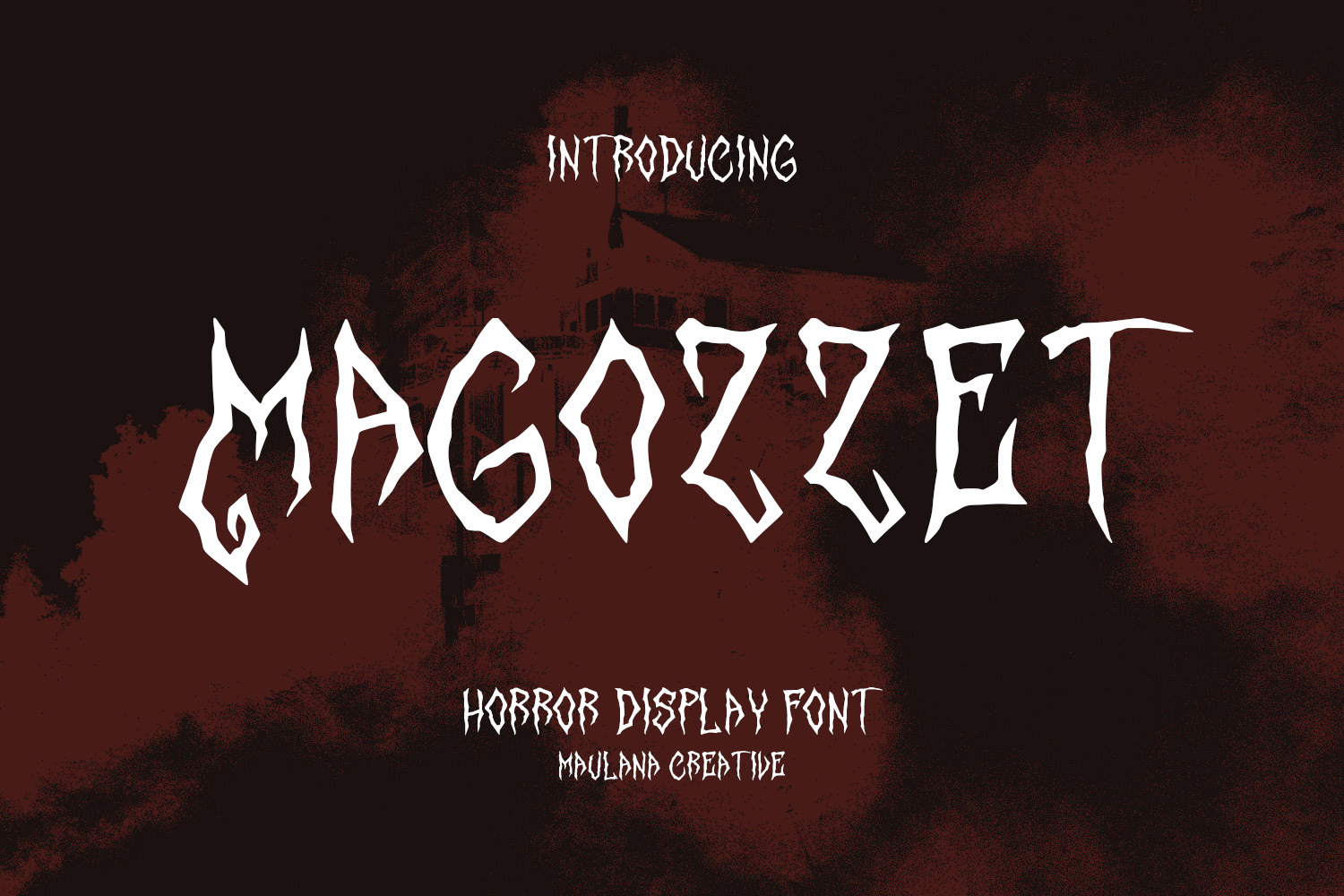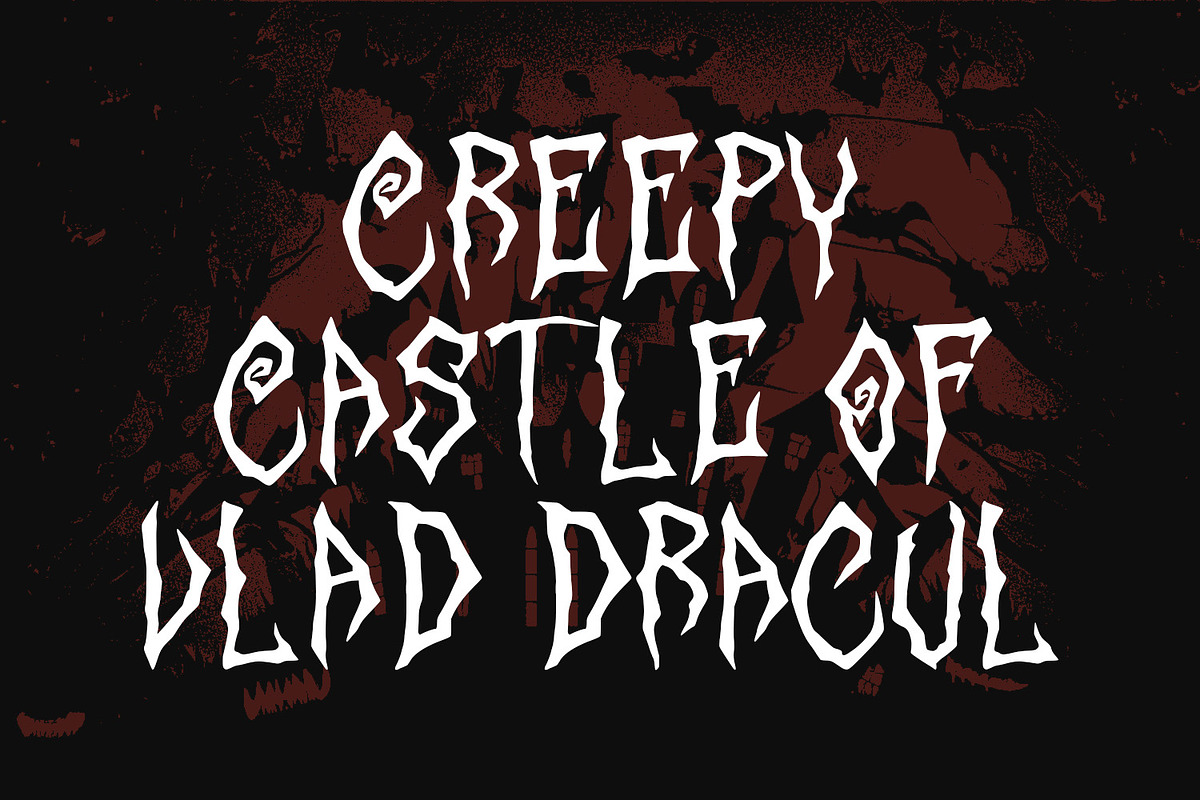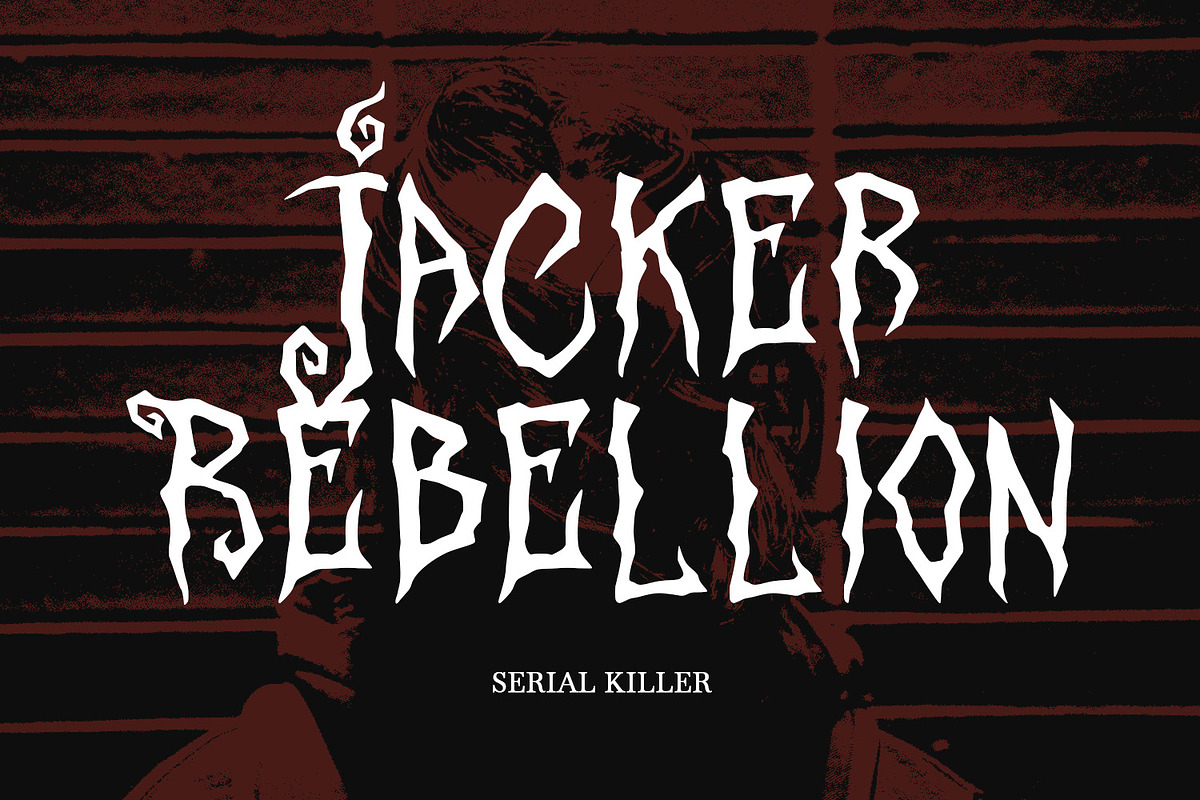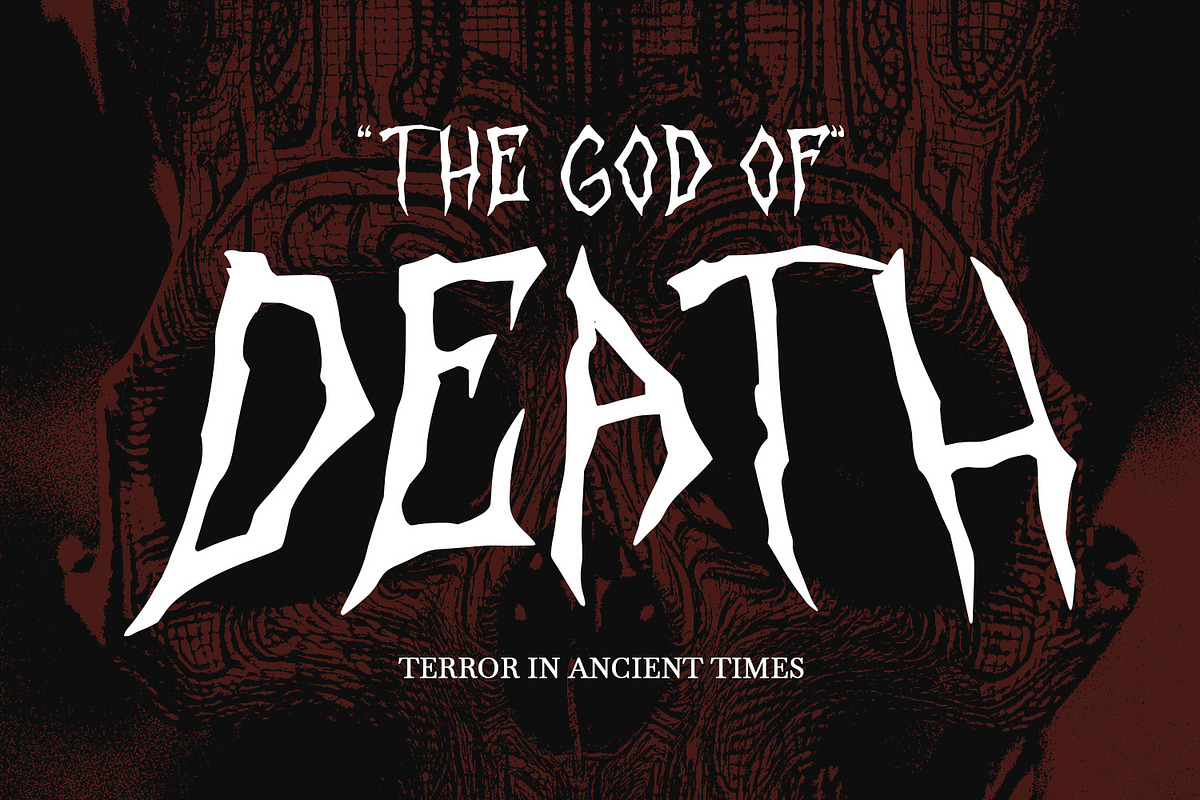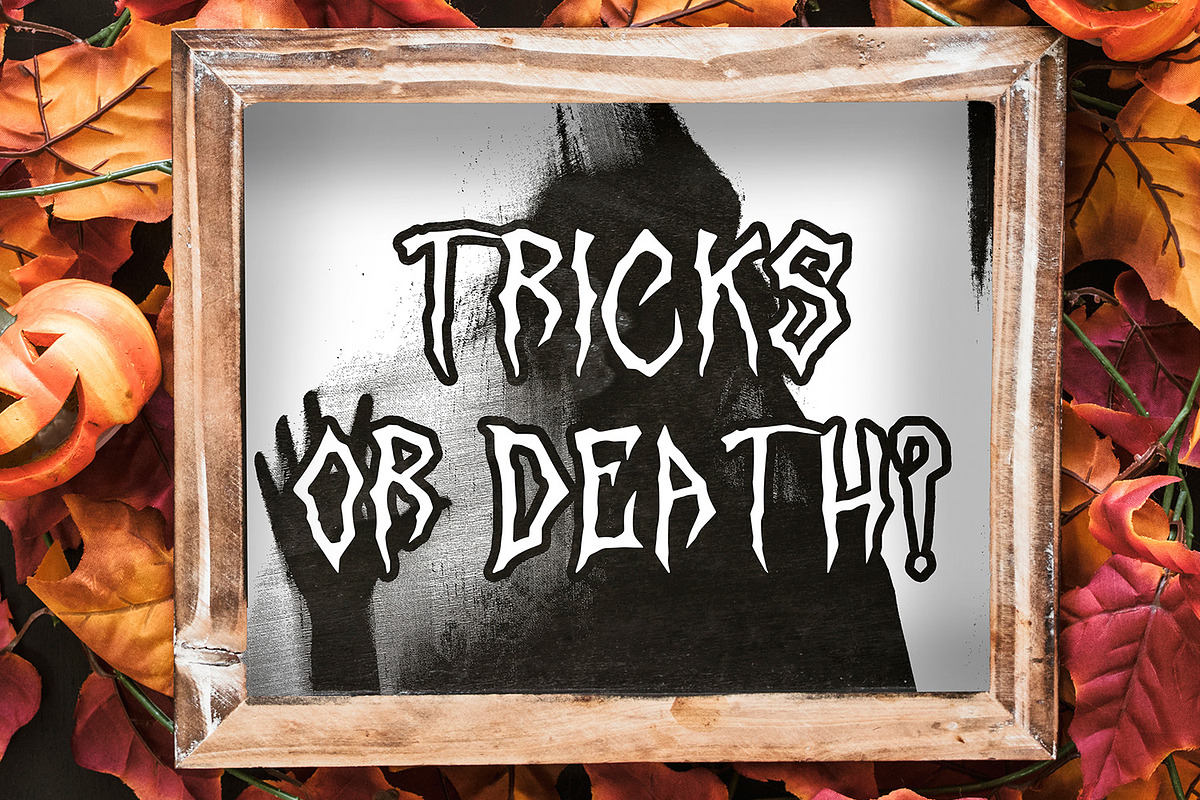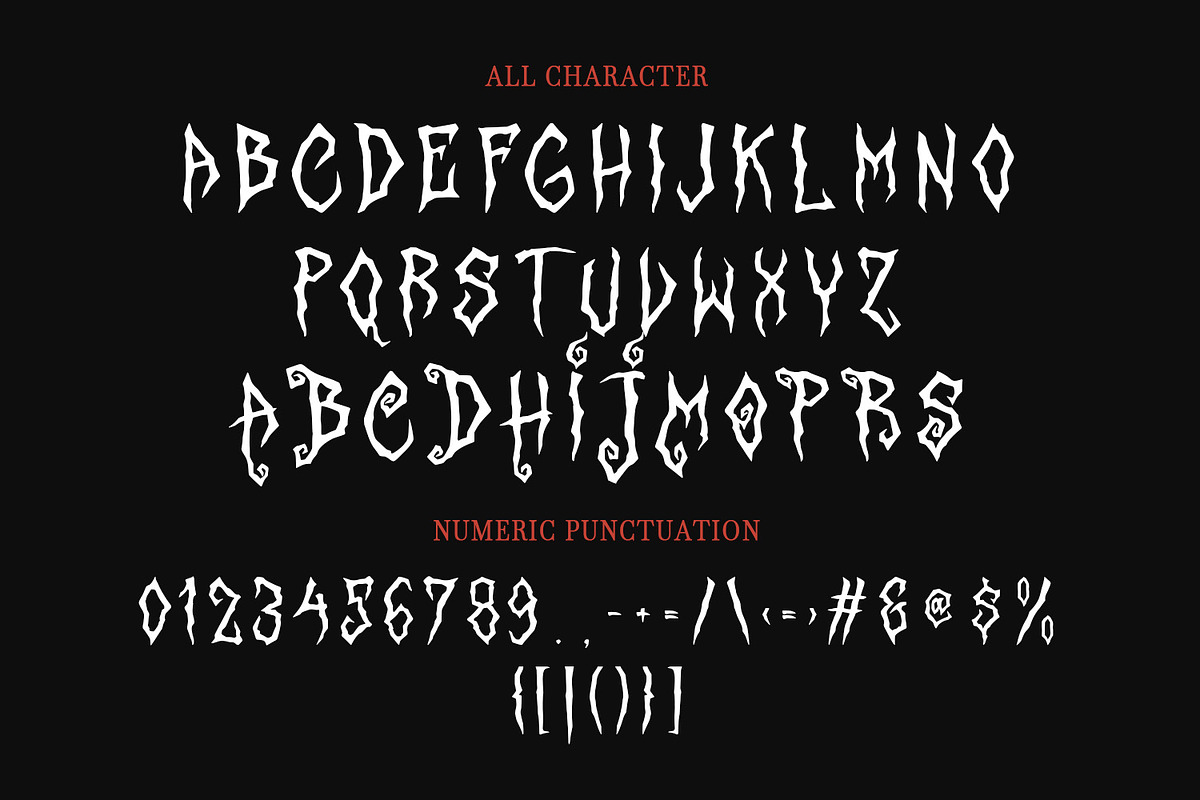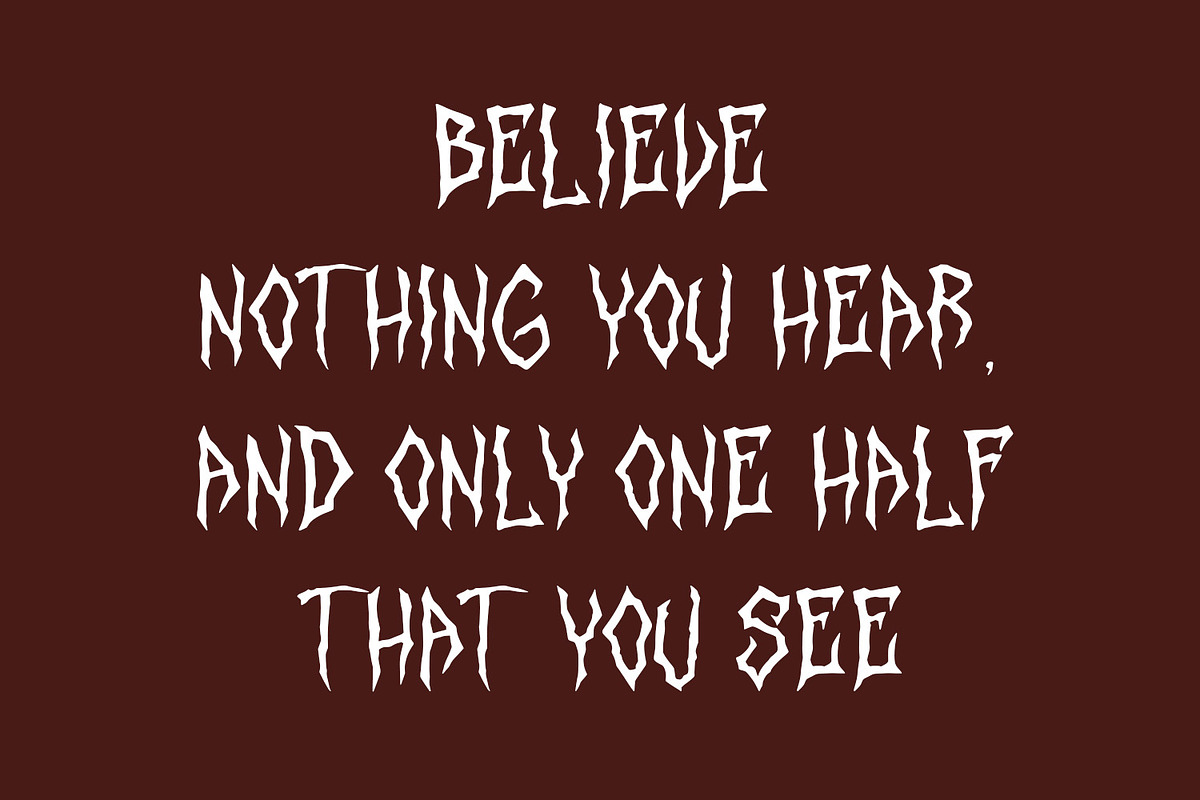
Magozzet Horror Display Font
Give your designs an authentic brush handcrafted feel. "Magozzet Horror Display Font" is perfectly suited to stationery, logo, typography quotes, magazine or book cover, website header, flyer, clothing, branding, packaging design and more.